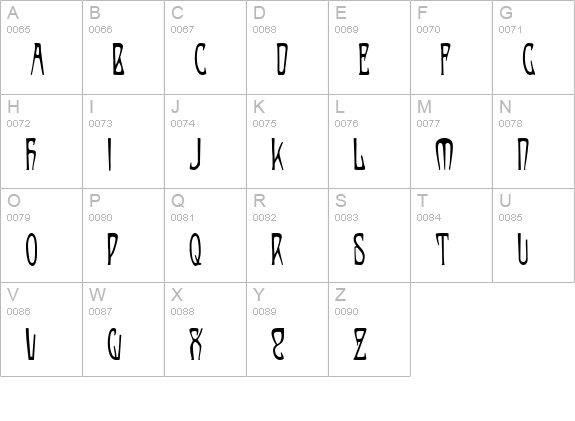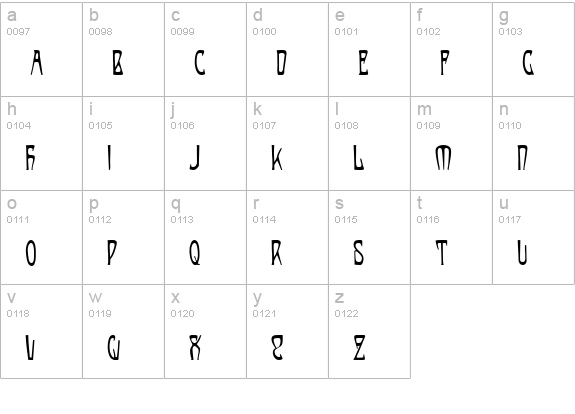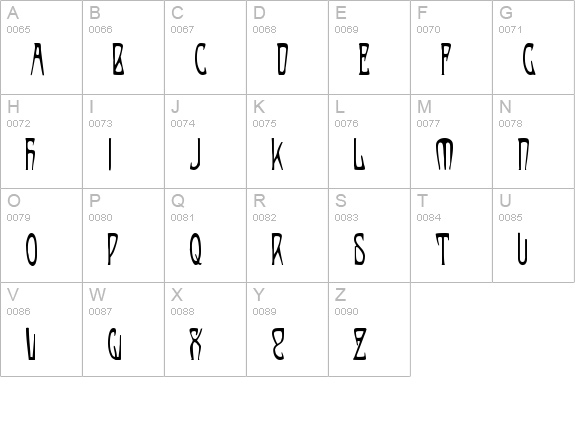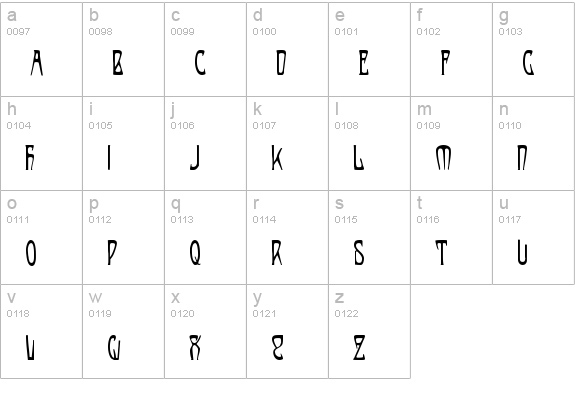
Bernhardtâ„¢ Font Details
Bernhardt™ font is a timeless and elegant typeface that exudes sophistication and class. With its graceful letterforms and delicate serifs, this font is perfect for adding a touch of refinement to any project. Whether you're designing a wedding invitation, creating a logo for a luxury brand, or crafting a high-end magazine layout, Bernhardt™ font will elevate your design to the next level. What's even better is that Bernhardt™ font is available for free download at FontsMarket.com. This means you can easily access this premium font without any cost, making it a valuable addition to your font collection. Don't miss out on the opportunity to enhance your designs with the beauty and grace of Bernhardt™ font. Download it now and let your creativity soar.